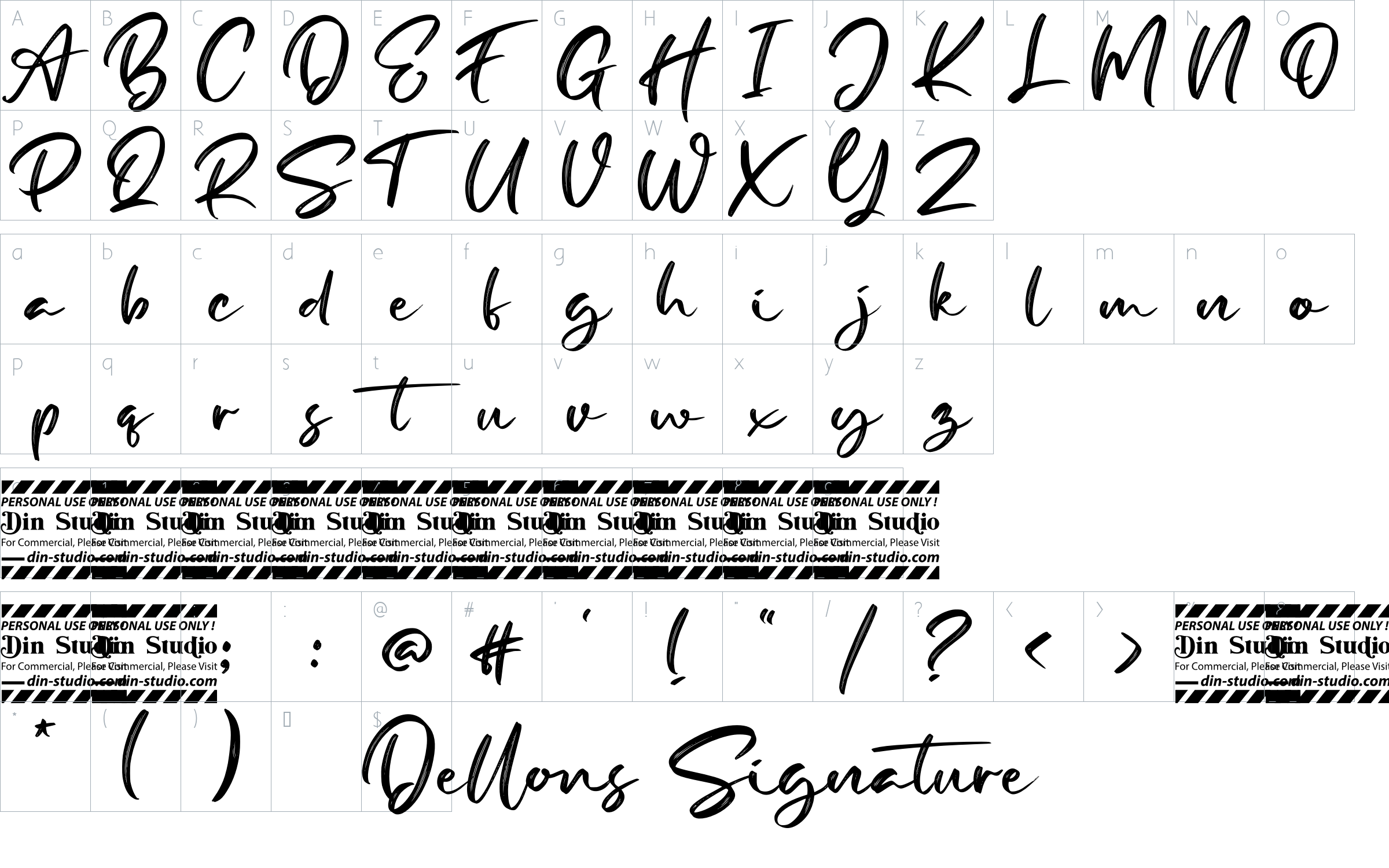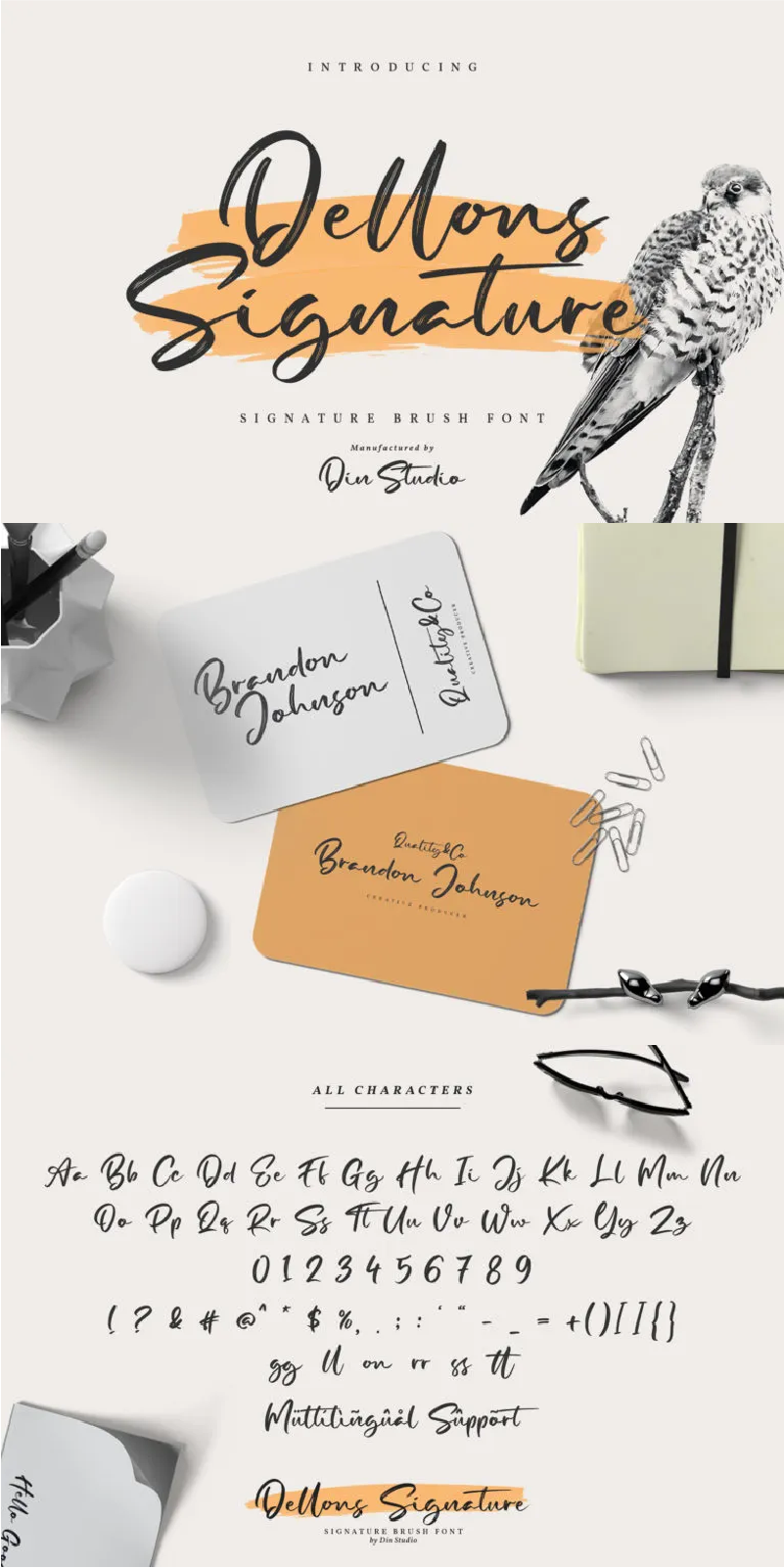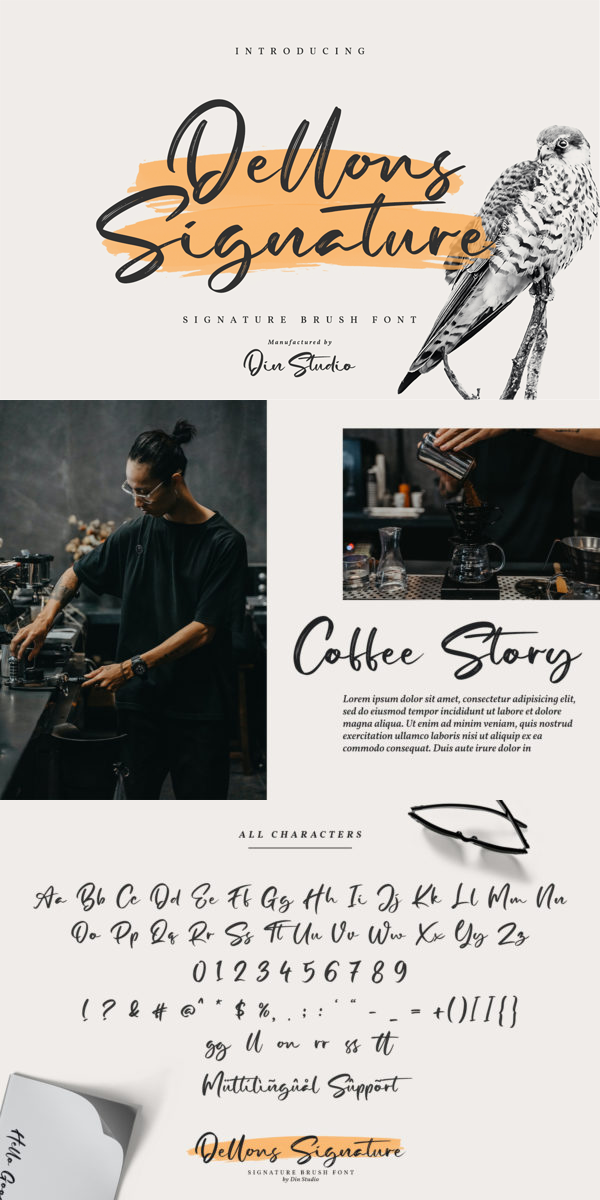
Dellons Signature Font
About Dellons Signature
Dellons Signature is an elegant brush font combined with brush textured handwritings that will make your design projects more special. It is made for any professional project brandings. It is best for logos, brandings and quotes. Every letter has a unique and beautiful touch. See the previews above to get some inspiration on how you can use them. Enjoy the font!